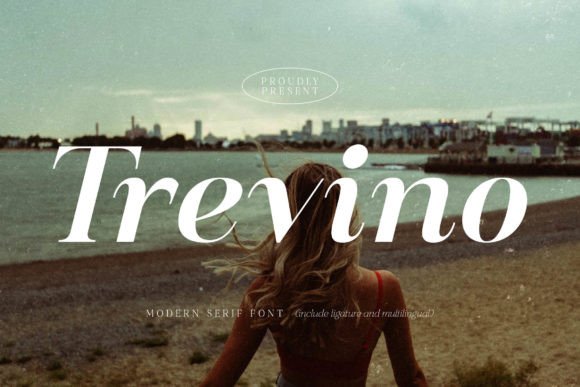
Introducing Trevino Font – The Key to Unlocking Visual Delights for Your Food Website
In the realm of culinary artistry, presentation plays a pivotal role in tantalizing taste buds and igniting gastronomic desires. As you embark on crafting your food website, let Trevino Font be your culinary brush, painting a picture of sheer elegance and sophistication that will leave your audience salivating for more.
Trevino Font, a serif masterpiece from the creative minds at Storytype Studio, is not just a font; it's an invitation to a culinary voyage like no other. Its intricate serifs and timeless curves dance harmoniously, evoking a sense of classicism and luxury that will elevate your website to a culinary haven.
With Trevino Font, you'll captivate your audience from the very first glance. Picture this: a tantalizing carousel of dishes, each adorned with Trevino's elegant lettering, beckoning your visitors to embark on a culinary journey they'll never forget.
But Trevino Font's allure extends beyond its visual prowess. Its carefully crafted curves and flourishes create a symphony of readability, ensuring that your website's message is conveyed with clarity and impact. Whether you're sharing mouthwatering recipes, showcasing your culinary expertise, or simply enticing your audience with tales of gastronomic adventures, Trevino Font will be your eloquent storyteller.
So why settle for ordinary fonts when you can bask in the brilliance of Trevino? Let its timeless beauty enhance your food website, attracting a loyal following of food enthusiasts and leaving them craving more.